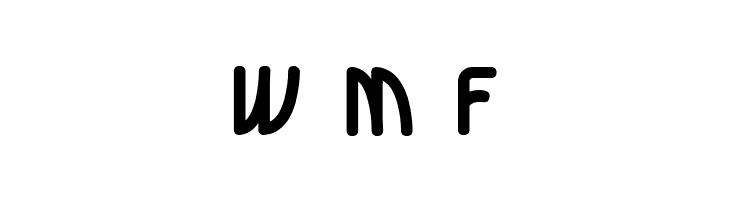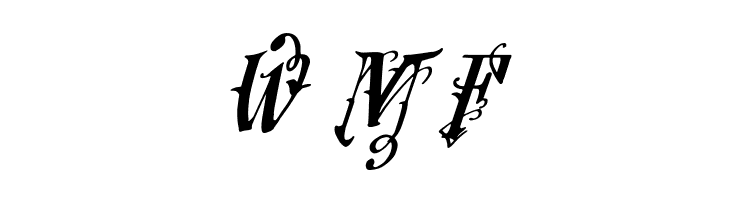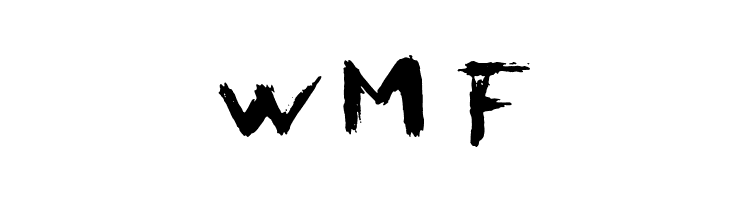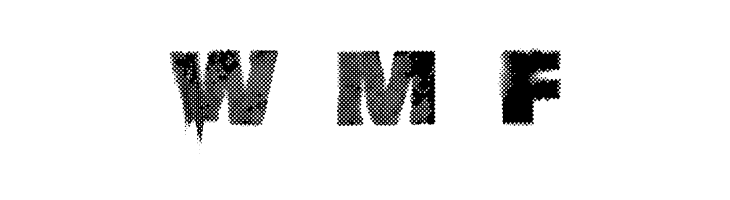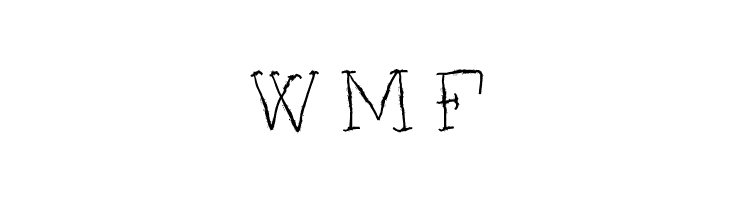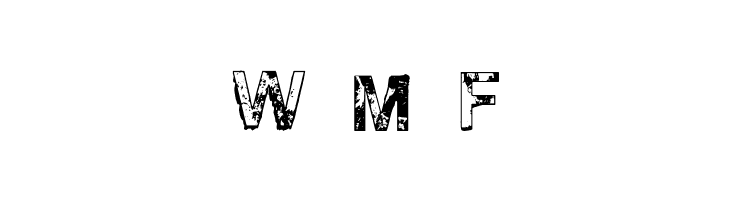
A bold, rounded font with a playful and modern style.
An ornate, italicized decorative font with elaborate swirls and flourishes.
A bold, distressed font with a rough, hand-painted style.
A bold, distressed font with a halftone texture for impactful designs.
A whimsical, decorative font with a hand-drawn, vintage aesthetic.
A distressed, grunge-style font with a textured, weathered appearance.
A bold, distressed font with a grunge texture and rugged appearance.
A futuristic, geometric font with bold, angular characters and a modern aesthetic.
A bold, distressed font with a grunge style and rugged appearance.
A bold, distressed font with a futuristic, industrial style.